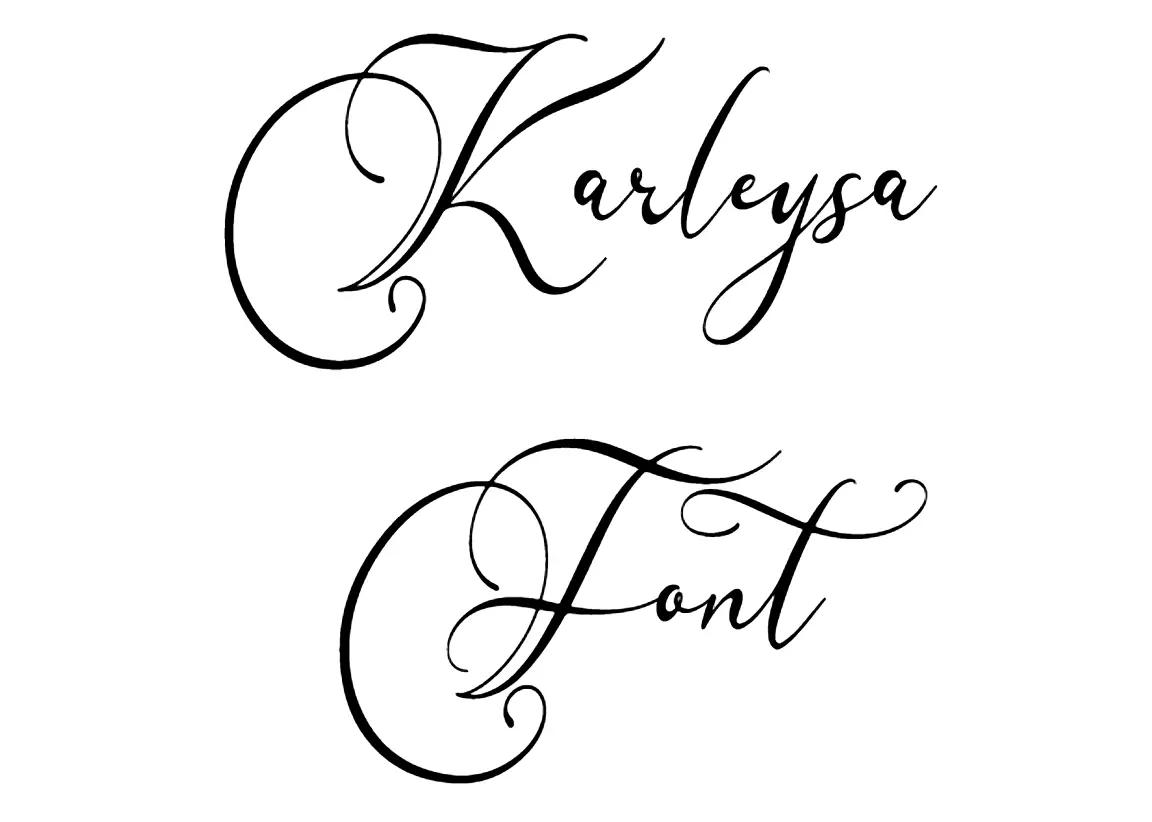
Karleysa
Karleysa is a handwritten font designed by Dede Nugraha and published by Denustudios (2022). It has a casual, written-with-a-pen look that makes designs feel personal. It's a free download, and you can try it with your own text in the preview above first.
- Designer: Dede Nugraha
- Publisher: Denustudios
- OpenType features: Ligatures and 9 stylistic sets
- Extra characters: 75 copy-and-paste alternates (Private Use Area)
With complete upper and lowercase letters and all ten digits, Karleysa is ready for real wording, not just a single headline. Everyday marks like &, !, ? and @ are there too. Thanks to its accented letters, it also works for Spanish, French, German, Portuguese and Italian, not just English.
Think of Karleysa for greeting cards, journal pages and friendly social posts. Its lowercase letters are small compared to the capitals, so set it a size or two bigger than usual. Set it a bit larger than you would a normal text font. Handwriting styles lose their charm once they get too small to read comfortably.
Yes. Karleysa includes the accented letters needed for Spanish, French, German, Portuguese and Italian, so it works for more than just English.